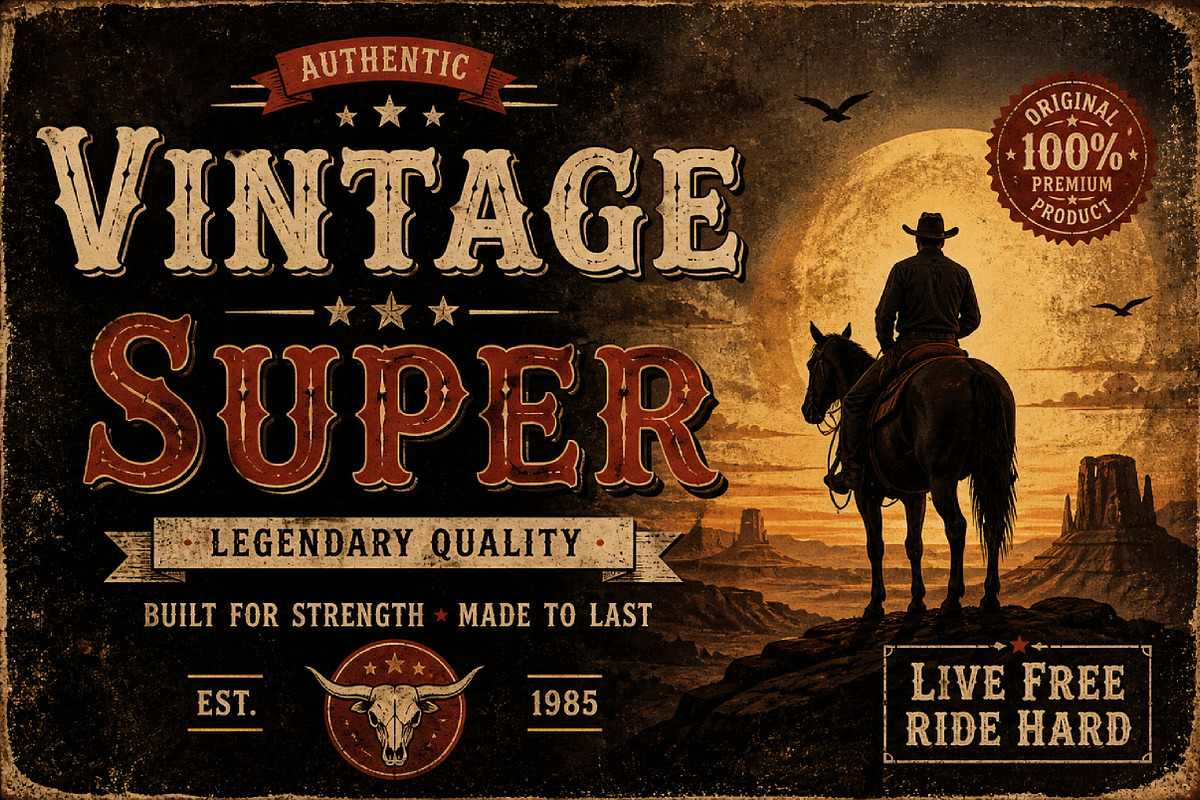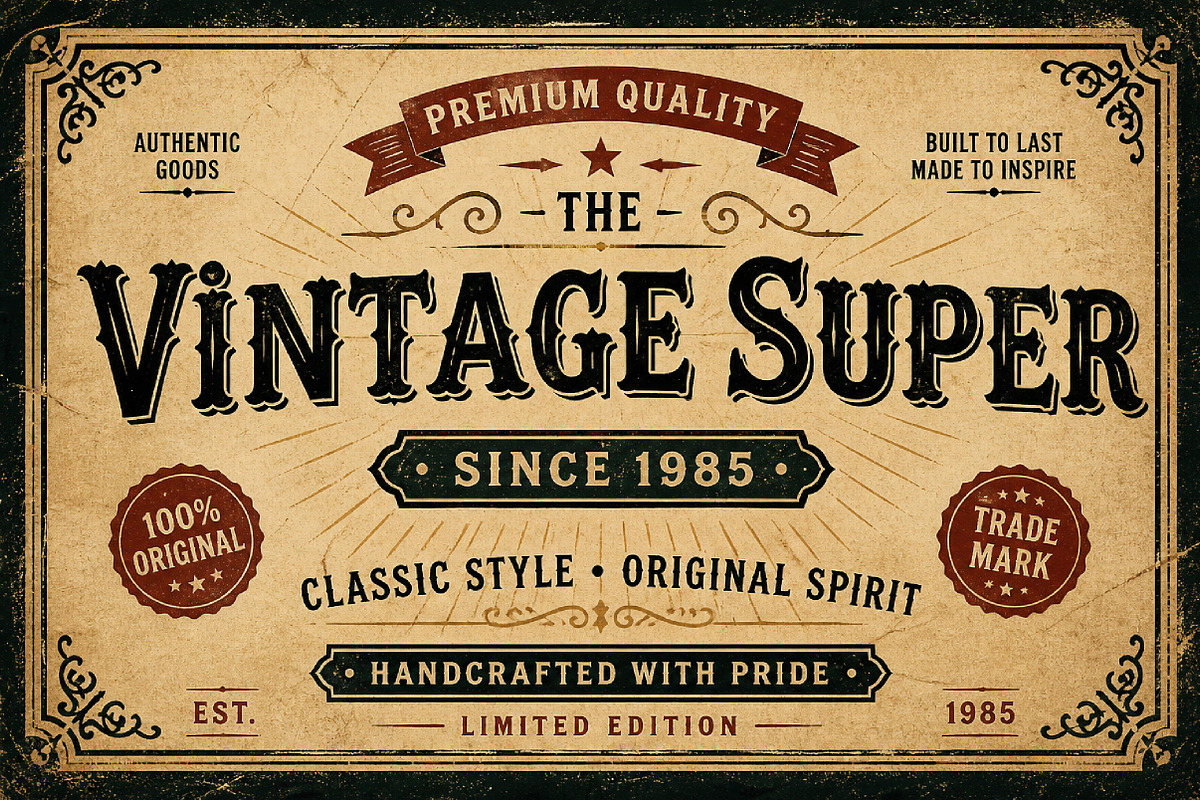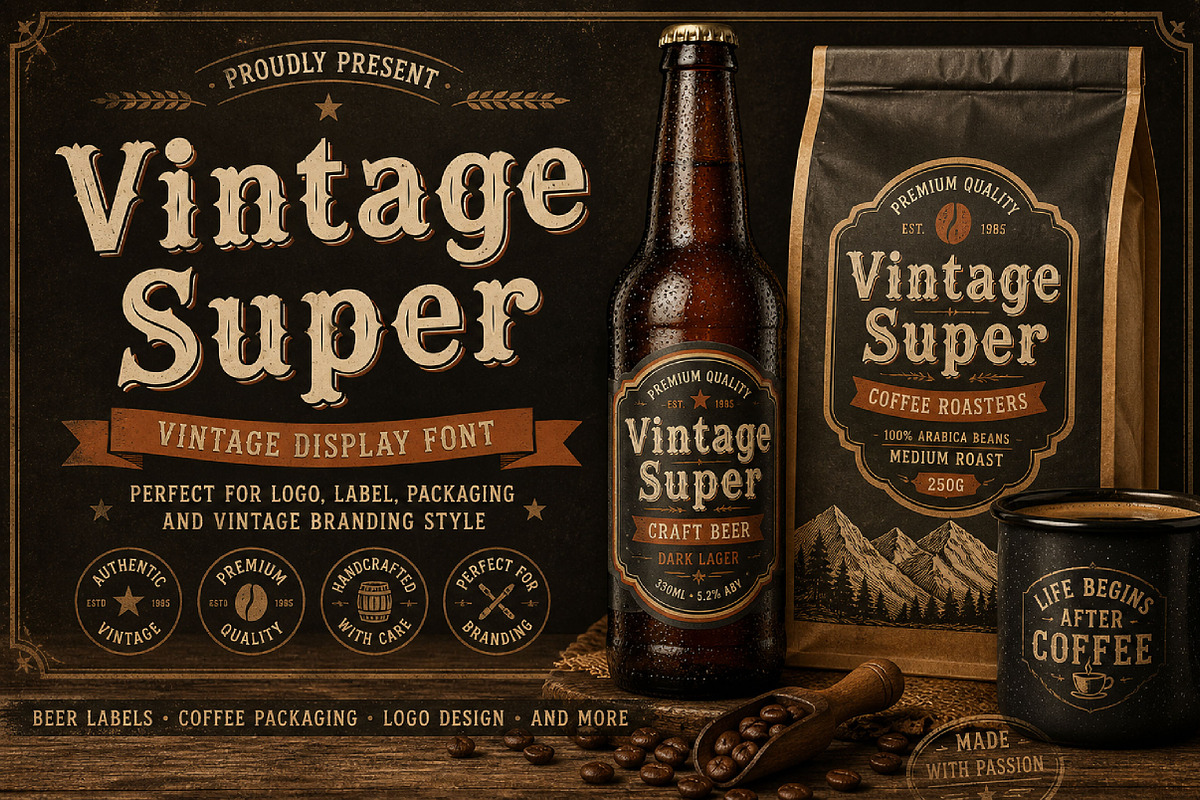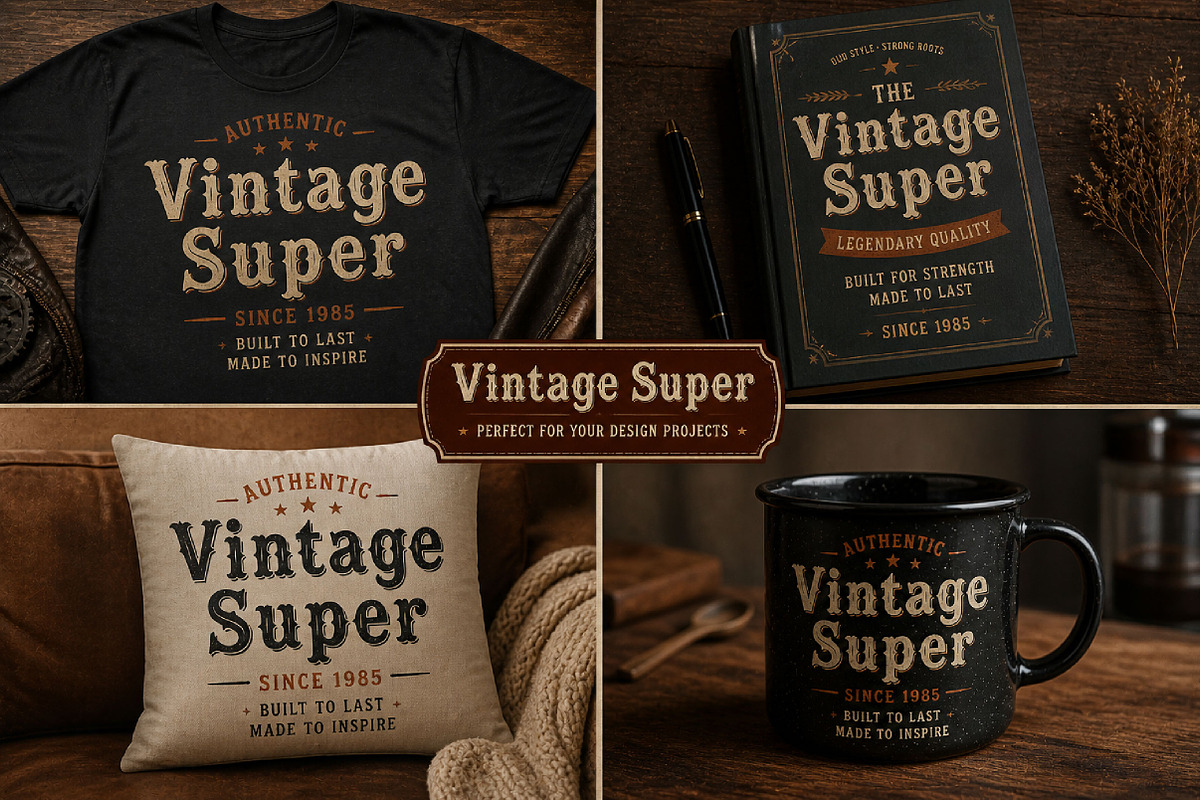
Vintage Super
Vintage Super – Decorative Vintage Display Font
Vintage Super is a bold decorative vintage display font with ornate serif details and a classic retro style, perfect for logos, posters, labels, packaging, headlines, and nostalgic branding.
Vintage Super is a decorative vintage display font designed to bring classic charm, bold personality, and nostalgic character to your creative projects. With its ornate serif shapes, strong letterforms, and detailed vintage styling, this font creates an eye-catching look that feels retro, artistic, and full of impact.
Its decorative old-style character makes Vintage Super perfect for projects that need a classic and memorable typography style. Use it for logo design, branding, posters, product packaging, labels, badges, merchandise, social media graphics, website headers, advertising, and retro-inspired designs.
Logos and branding
Posters and headlines
Product packaging
Label and badge design
Retro-inspired designs
Vintage branding
Merchandise design
Website headers
Advertising materials
Uppercase letters
Lowercase letters
Numbers and punctuation
Decorative vintage style
Ornate serif details
Bold display look
Classic retro character
Perfect for headline use